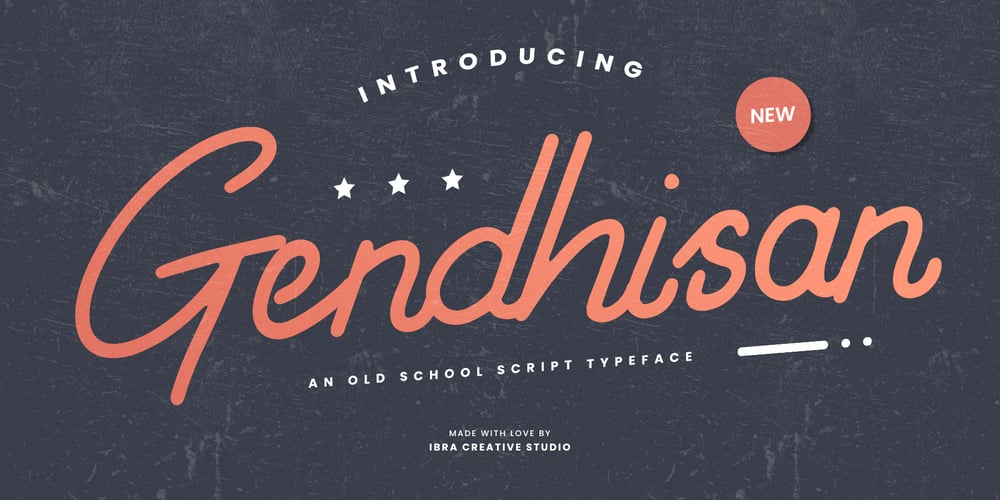
Gendhisan Font Family was designed by Roisatul Azizah and published by IbraCreative. Gendhisan contains 1 styles and family package options. Gendhisan – An Old School Script TypefaceGendhisan, an old-school script typeface, exudes a timeless charm reminiscent of vintage lettering. With its elegant strokes and classic design, Gendhis captures the essence of handwritten scripts from a bygone era. Each character is carefully crafted to evoke a sense of nostalgia, reflecting the artistry of traditional calligraphy. The gracefully flowing lines and distinctive flourishes of Gendhis lend an air of sophistication to any project, making it an ideal choice for those seeking to infuse a touch of vintage authenticity into their designs. Whether used for invitations, signage, or branding, Gendhis stands as a testament to the enduring appeal of the old-school script, seamlessly blending tradition with contemporary design needs.Gendhisan is perfect for branding projects, logo, wedding designs, social media posts, advertisements, product packaging, product designs, label, photography, watermark, invitation, stationery, game, fashion and any projects.Fonts include multilingual support for; Afrikaans, Albanian, Czech, Danish, Dutch, English, Estonian, Finnish, French, German, Hungarian, Italian, Latvian, Lithuanian, Norwegian, Polish, Portuguese, Slovak, Slovenian, Spanish, Swedish.